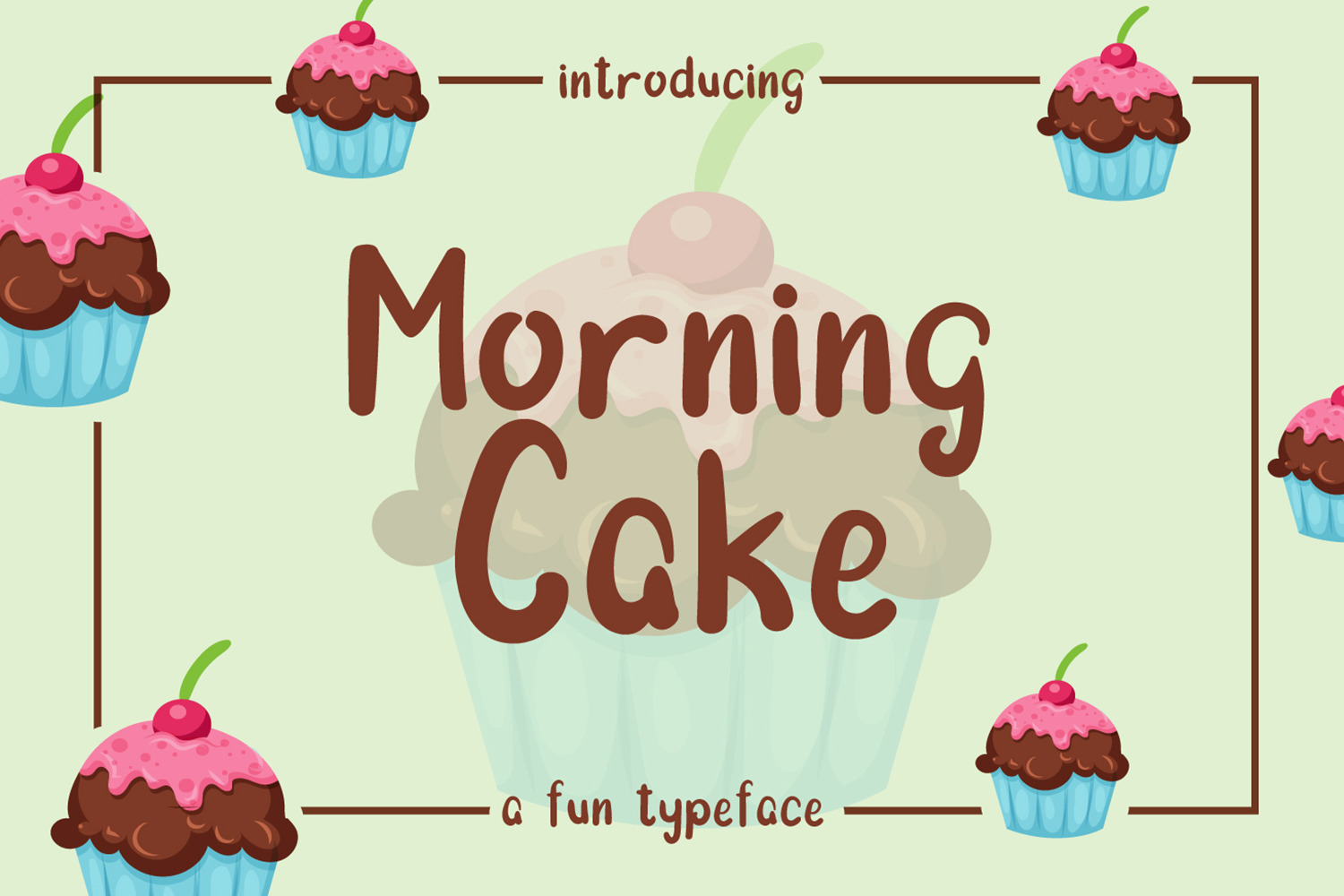
Morning Cake - Fun Font
Morning Cake is a simple, fun and cute font for beautiful design. Morning Cake is great for branding design, invitation designs, logo, simple quote, product display, product packaging or simply design with stylish text overlay to any background image. Includes :
- uppercase & lowercase letters